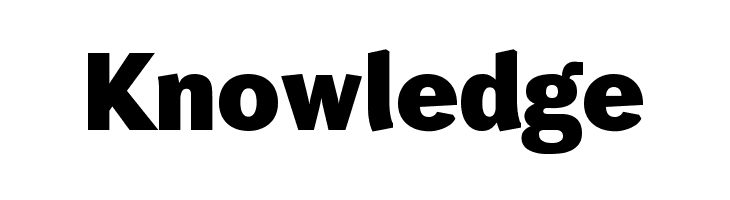
Dinamika Black Font
- Font: Dinamika Black
( Fonts by Ingo Zimmermann - www.ingofonts.com )
A bold, heavy font with wide, consistent strokes and rounded edges.